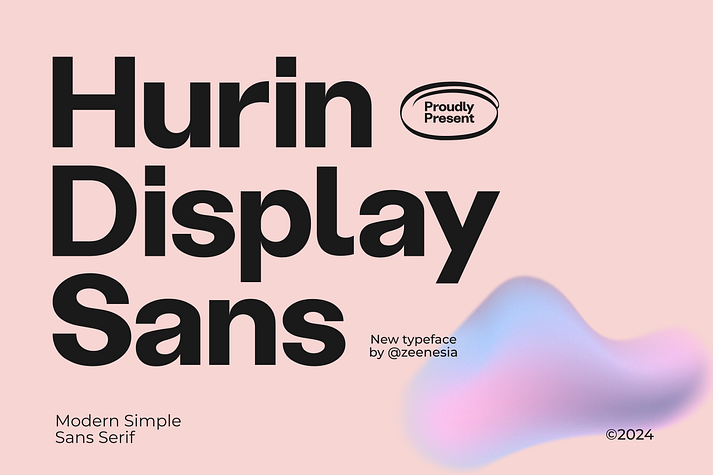
Hurin
Hurin is a sans serif font family published by Zeenesia Studio.
Introducing Hurin - Modern Sans Serif. Hurin is a modern and simple font. Hurin is a sans serif font that has smooth curves and a visual style a can embodies charm and elegance in every lettering, making your work look stunning and attractive.
Hurin font that works in both uppercase and lowercase sizes, suitable for a wide variety of projects such as a display font for headings, logo fonts, invitations, branding, magazine, photography, card, product packaging, product mockup, mugs, posters, labels, editorials, art deco, and any type of advertising purpose.